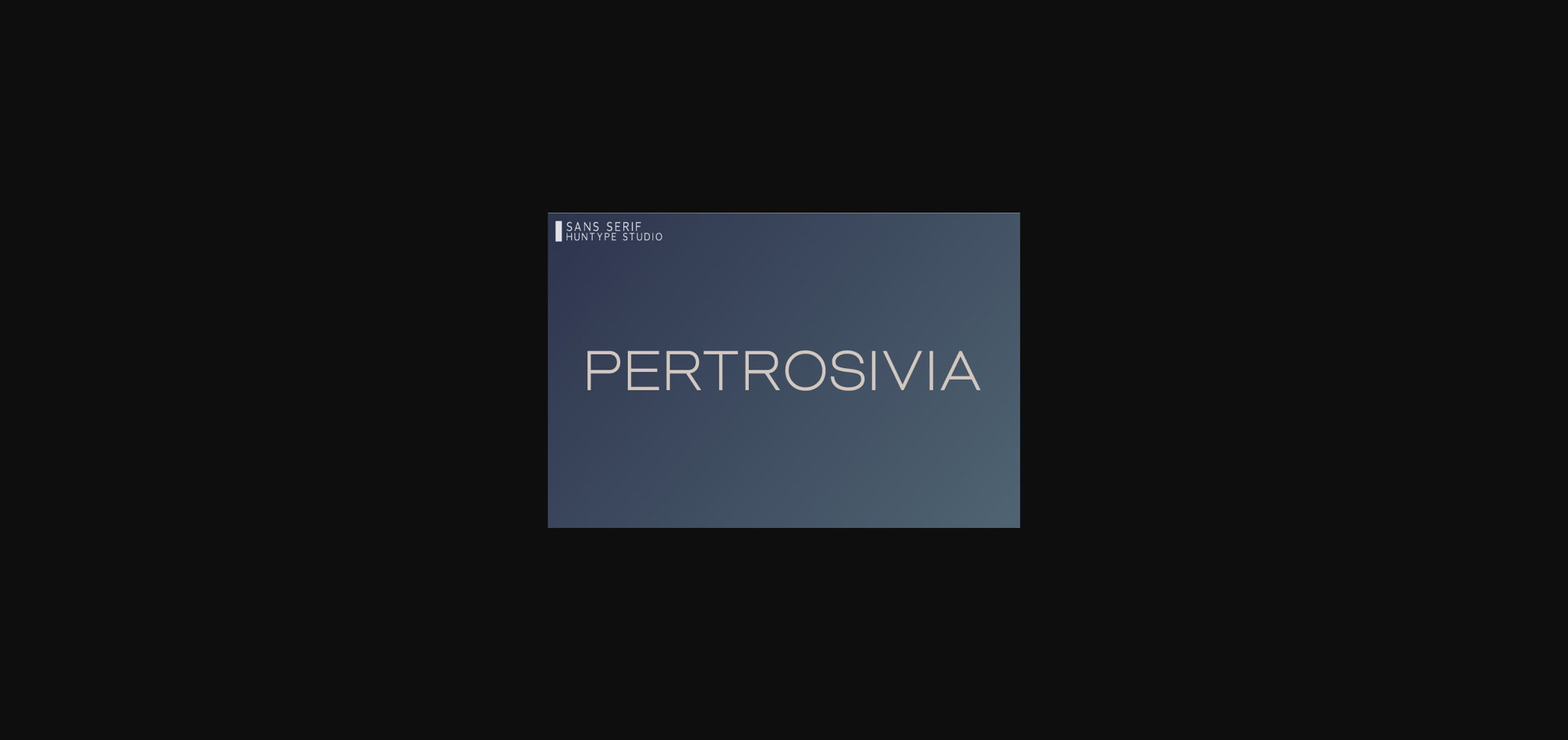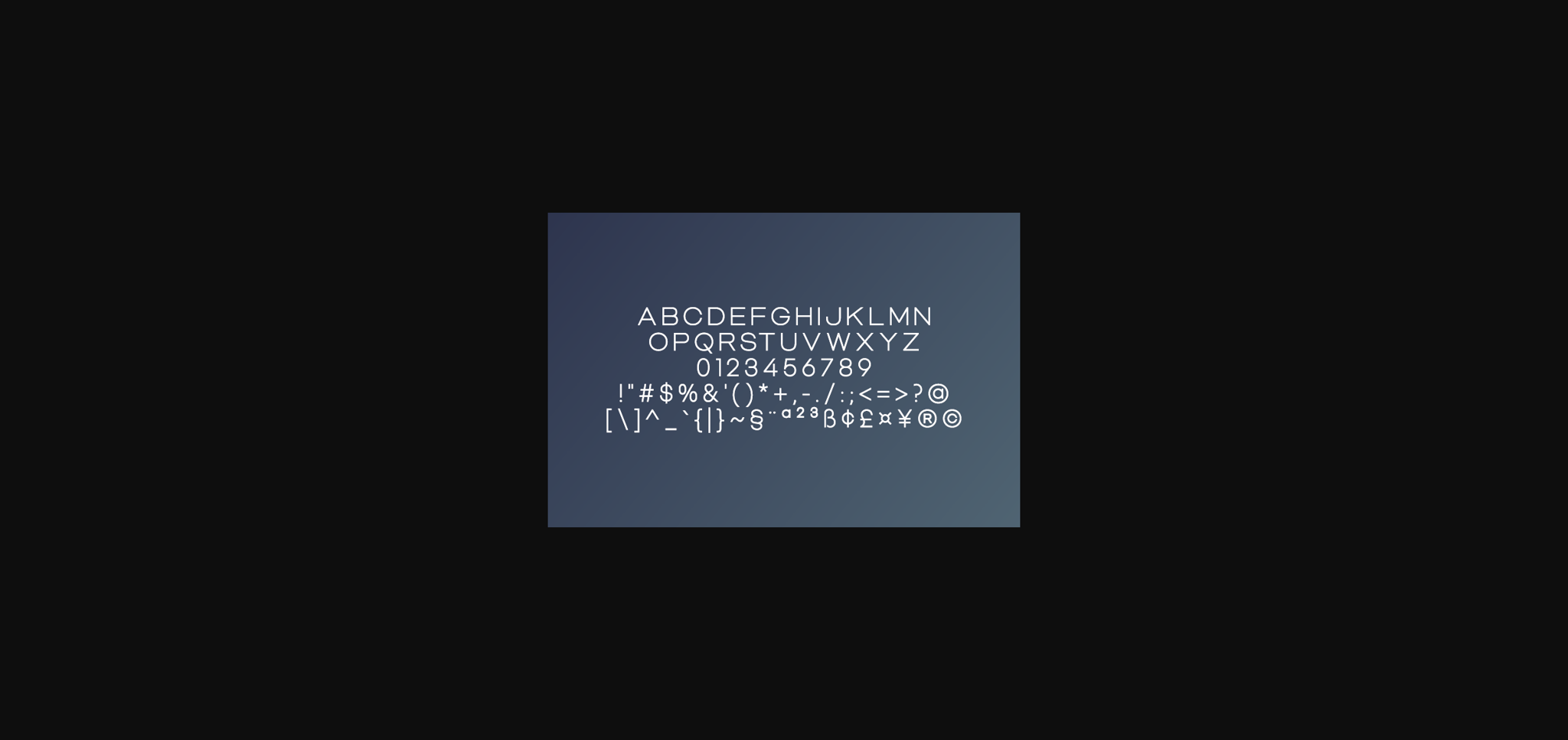
HomeSans Serif FontsPertrosivia Font Sans Serif Fonts Pertrosivia Font FacebookXPinterestWhatsApp 1 of 4 ... Pertrosivia Font Poster 2... Pertrosivia Font Poster 3... Pertrosivia Font Poster 4... About Pertrosivia Font Pertrosivia is a smooth sans serif font. It will complement any design need perfectly with its perfectly balanced mix of the smooth and sharp! DOWNLOAD NOW People also explored Michiana Pro Square Imagine Font Gold Pen Font Ellida Good Yark Font Roses Font Black Cycle Font Sweet Madelyn Font Last Episode 360 0 TagsPertrosivia Font Previous articleFoshark FontNext articleDumblerun Font LEAVE A REPLY Cancel reply Comment: Please enter your comment! Name:* Please enter your name here Email:* You have entered an incorrect email address! Please enter your email address here Website: Save my name, email, and website in this browser for the next time I comment. Personal Use Free BD Spinner Personal Use Free Read more about this font Starry Cakes Personal Use Free Read more about this font Super Caramel Font Personal Use Free Read more about this font Unicorn Kids Personal Use Free Read more about this font BLOG Best Fonts for T-Shirt Design – Top 2025 Picks In 2025, t-shirt design has become more than just fashion—it's a form of self-expression. Whether you're... Free Fonts Risk: Why Free Fonts Can Be Dangerous for Designers To increase your work productivity, choose the most readable fonts. 5 Fonts That Will Dominate Design Trends in 2026